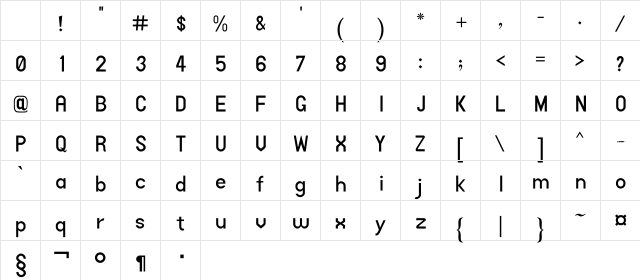
AlQalam Shazil Regular
Designer: Syed Shakir ul Qadree
Complete AlQalam Shazil Regular glyph index. Displaying only characters natively supported by AlQalam Shazil Regular font.
Design Context for AlQalam Shazil
AlQalam Shazil is a composed and adaptable typeface that performs quietly and consistently across a wide range of design contexts.